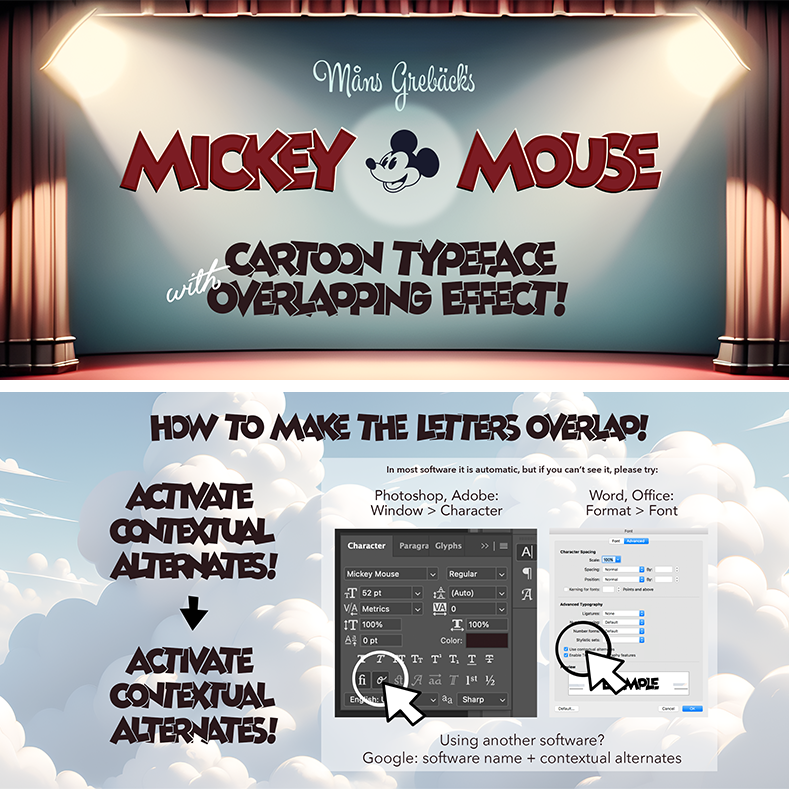
Preview and download Mickey Mouse Font. Created by Måns Grebäck in Fancy Cartoon styles with Free for personal use license.
NOTE: This font is for PERSONAL USE ONLY! To purchase a commercial license, visit: http://mn.sg/mickey-mouse Mickey Mouse is a delightful blend of humor and optimism, designed to capture the essence of classic cartoons. Download required for overlap effect! Make sure to activate contextual alternates in your design software to make the letters overlap! Google: software name + contextual alternates. For questions, please visit www.mansgreback.com/faq |